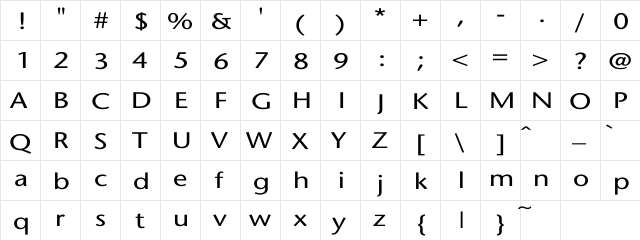
SapirSans Wd Regular
Design Context for SapirSans Wd Typeface
SapirSans Wd offers clean, dependable letterforms without strong stylistic allegiance, making it a practical choice for designers who need flexibility.